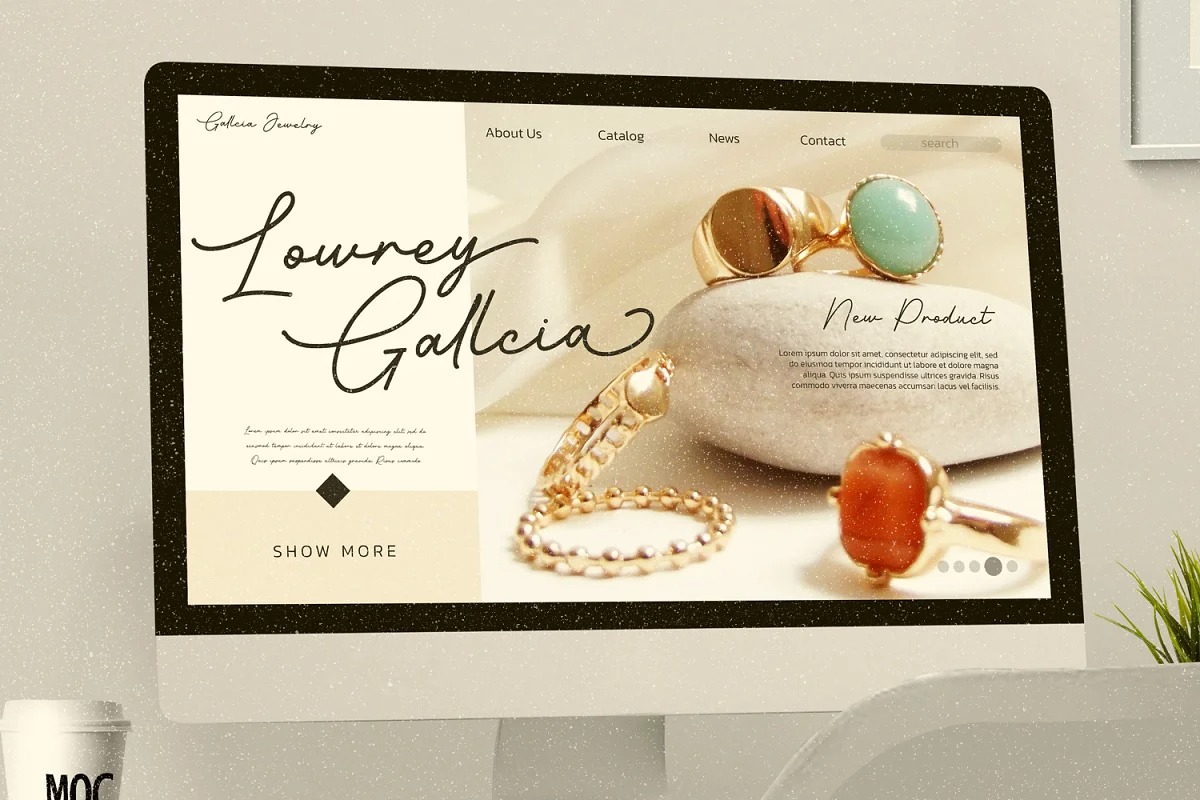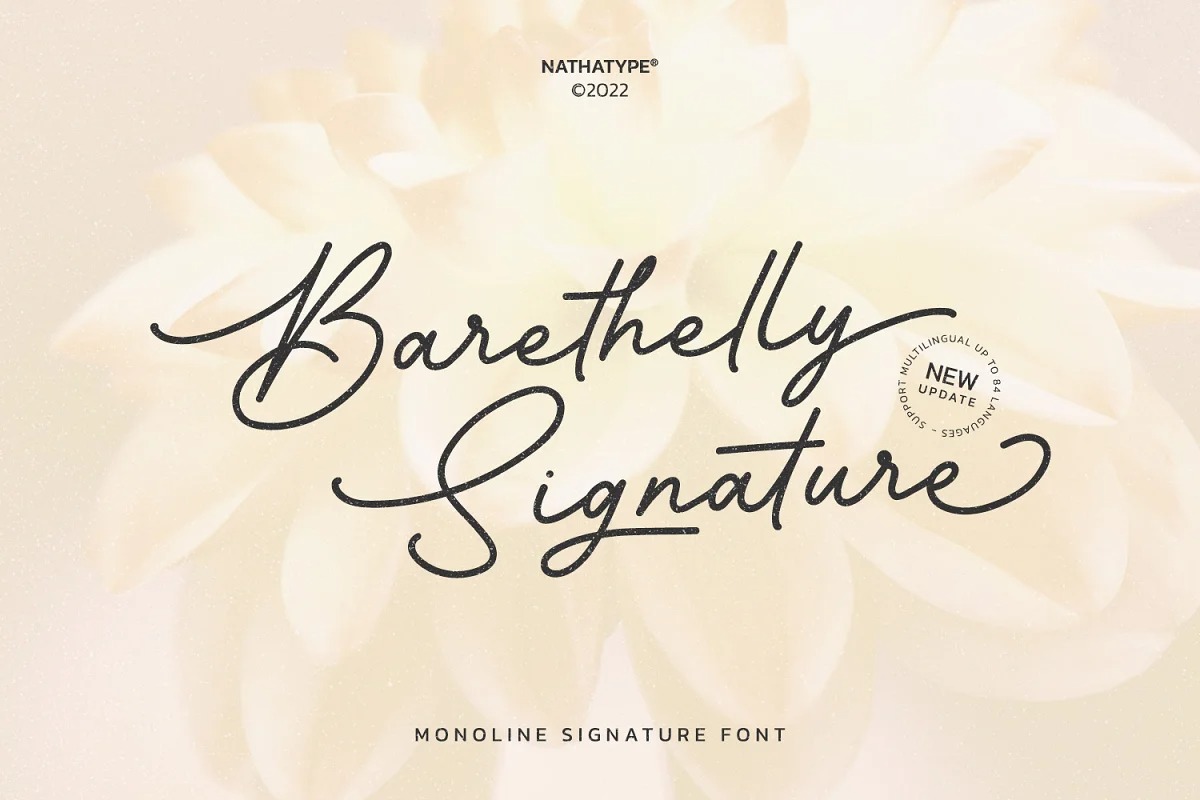
Barethelly Signature Script Font
This is an elegant, modern and unique signature typeface crafted & designed by Din Studio. This font generates clean, elegant and trustworthy appearance. As our commitment to support your brand globally recognized, we always come with multilingual options.